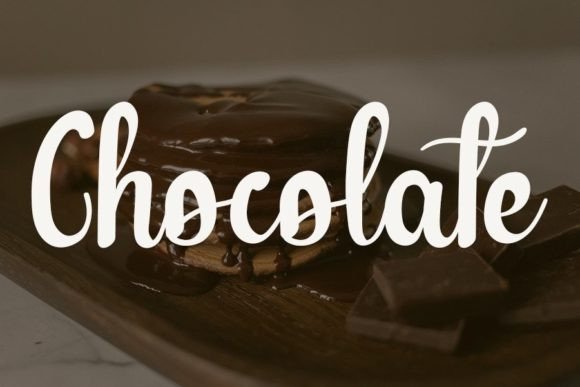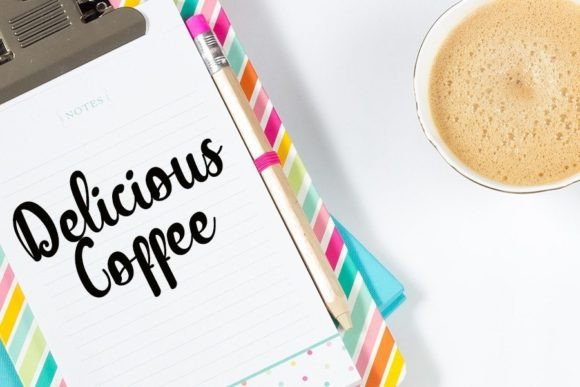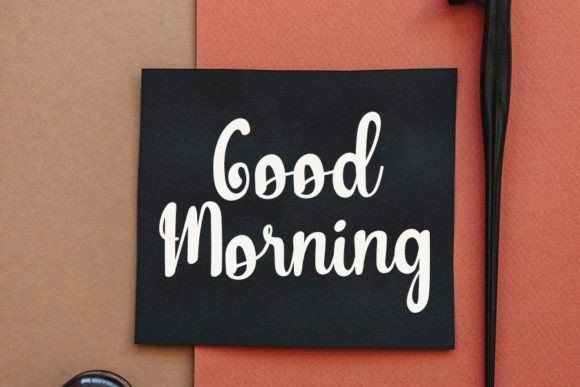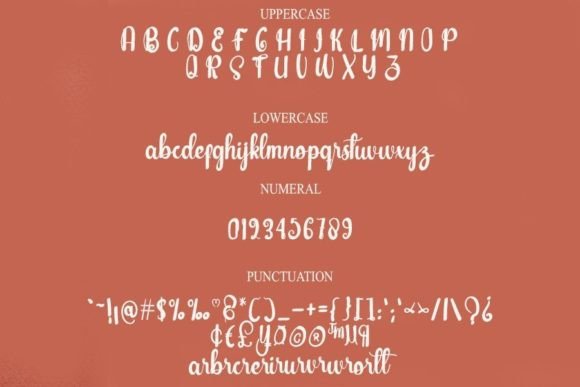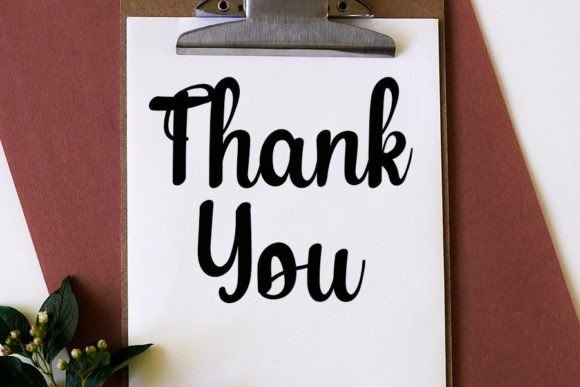
The Perfect Strike: Discovering the Charm of Bowling Font
I’ll never forget the time I was working on a branding project for a trendy bowling alley. My client wanted a font that was both classy and playful, but I was struggling to find the right fit. That was until I stumbled upon Bowling Font, a friendly handwritten font that quickly became my go-to. In this article, I’ll share my experience with Bowling Font, its features, and how to make the most of it in your designs.
A First Impression: What I Love About Bowling Font
Bowling Font is a carefully crafted handwritten font that effortlessly blends calligraphic influences with a modern twist. Here are some of the things that I love about it:
• ✨ Classy yet approachable: Bowling Font has a sophisticated feel to it, making it perfect for high-end branding projects or elegant wedding invitations.
• ✅ Contemporary and fresh: The font’s modern take on traditional calligraphy ensures it feels current and on-trend.
• 💫 Highly legible: Despite its elegant nature, Bowling Font remains easy to read, even at smaller font sizes.
A Few Quirks to Keep in Mind
While Bowling Font is an excellent choice for many projects, there are a few minor limitations to consider:
• 🤔 Limited character set: While Bowling Font has a wide range of characters, it may not have every special character or glyph you need.
• ⚠️ Not ideal for body text: Due to its elegant, handwritten nature, Bowling Font is best suited for headings, titles, or short paragraphs.
The Story Behind Bowling Font
Bowling Font was designed with the goal of creating a friendly, approachable handwritten font that still felt elegant and refined. The designer aimed to craft a font that would be perfect for a wide range of projects, from wedding invitations to branding and packaging.
What type of projects is Bowling Font best suited for? Bowling Font is ideal for projects that require a touch of elegance and sophistication, such as wedding invitations, branding, packaging, and titles or headings.
Can I use Bowling Font for body text? While Bowling Font is highly legible, it’s best suited for short paragraphs or headings due to its elegant, handwritten nature.
Does Bowling Font have OpenType features? Yes, Bowling Font has a range of OpenType features, including stylistic alternates and glyphs, which can be accessed in compatible design software.